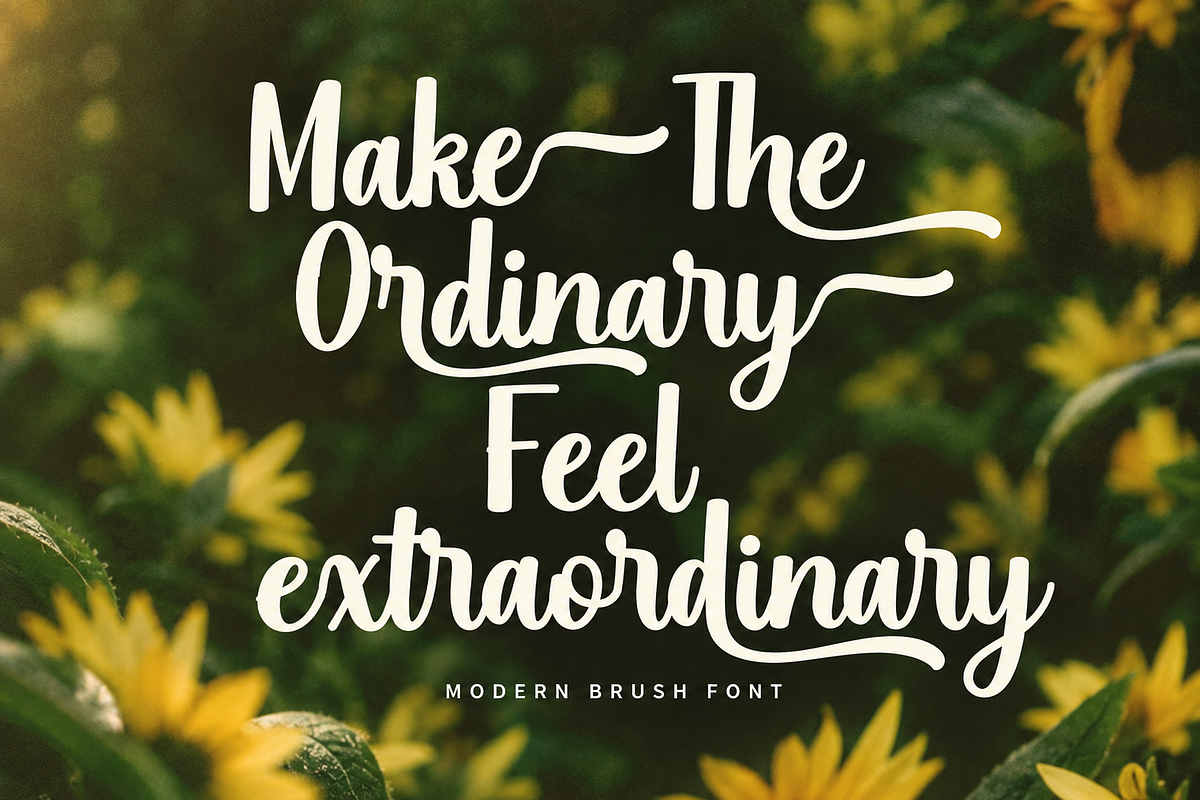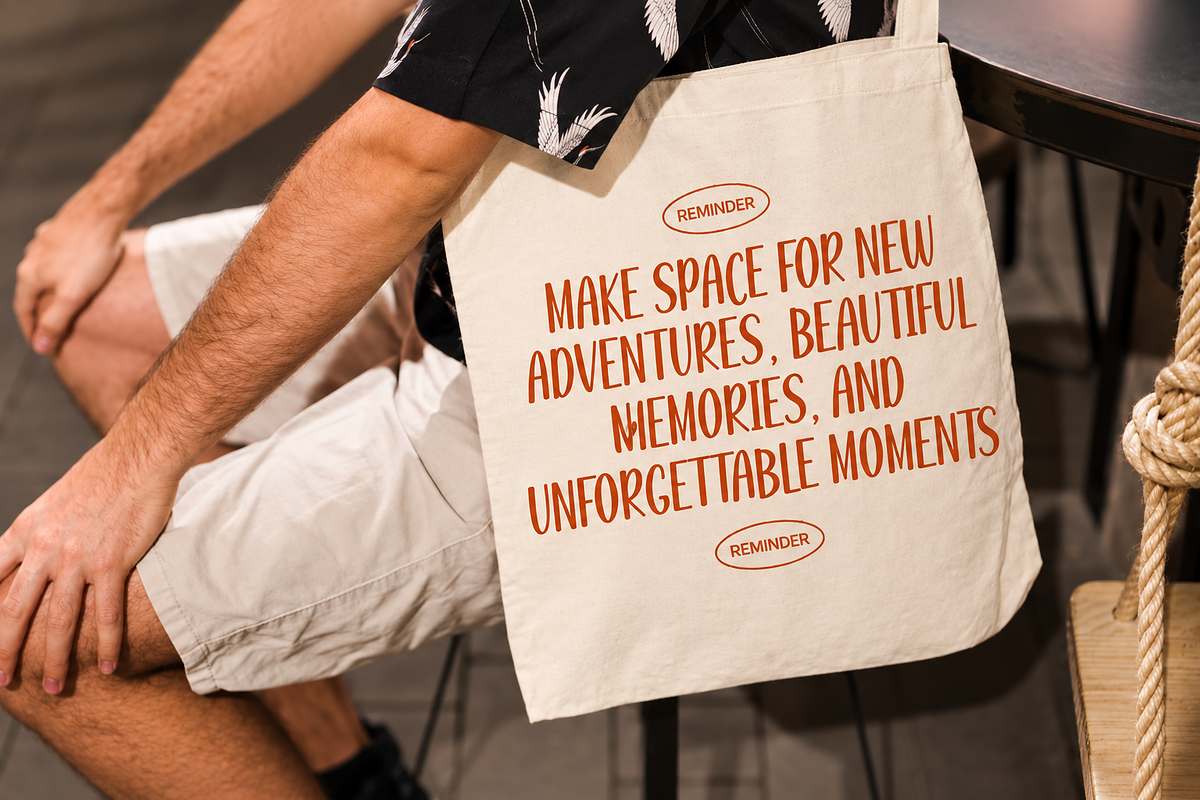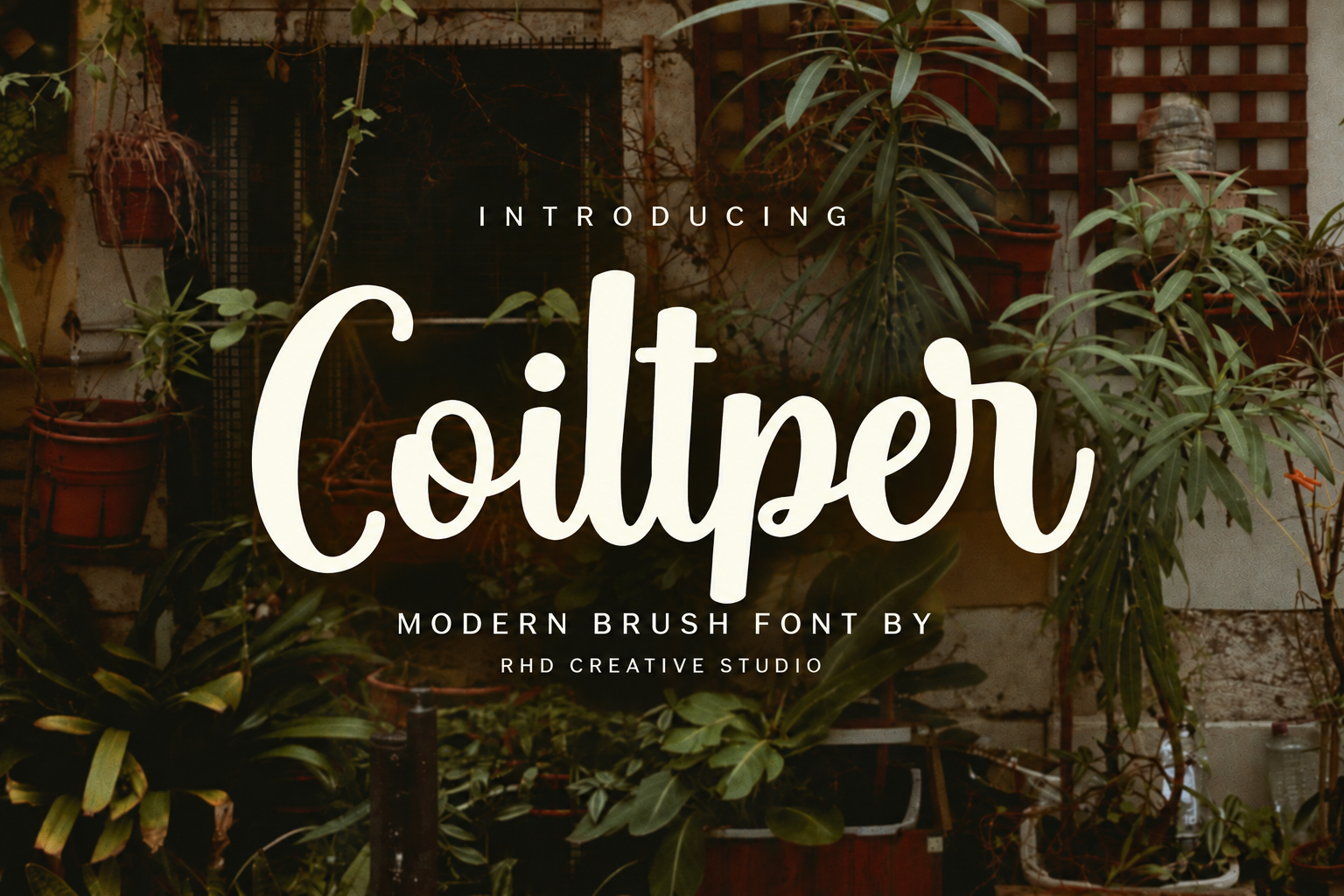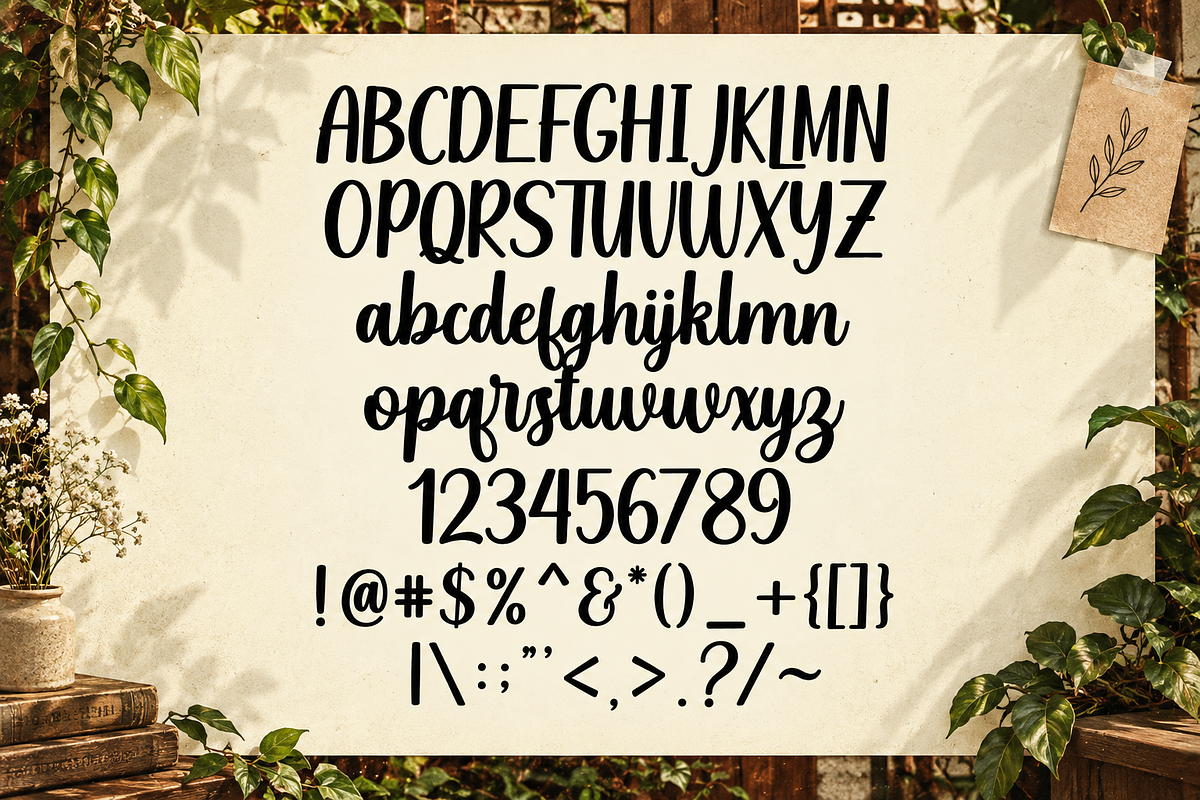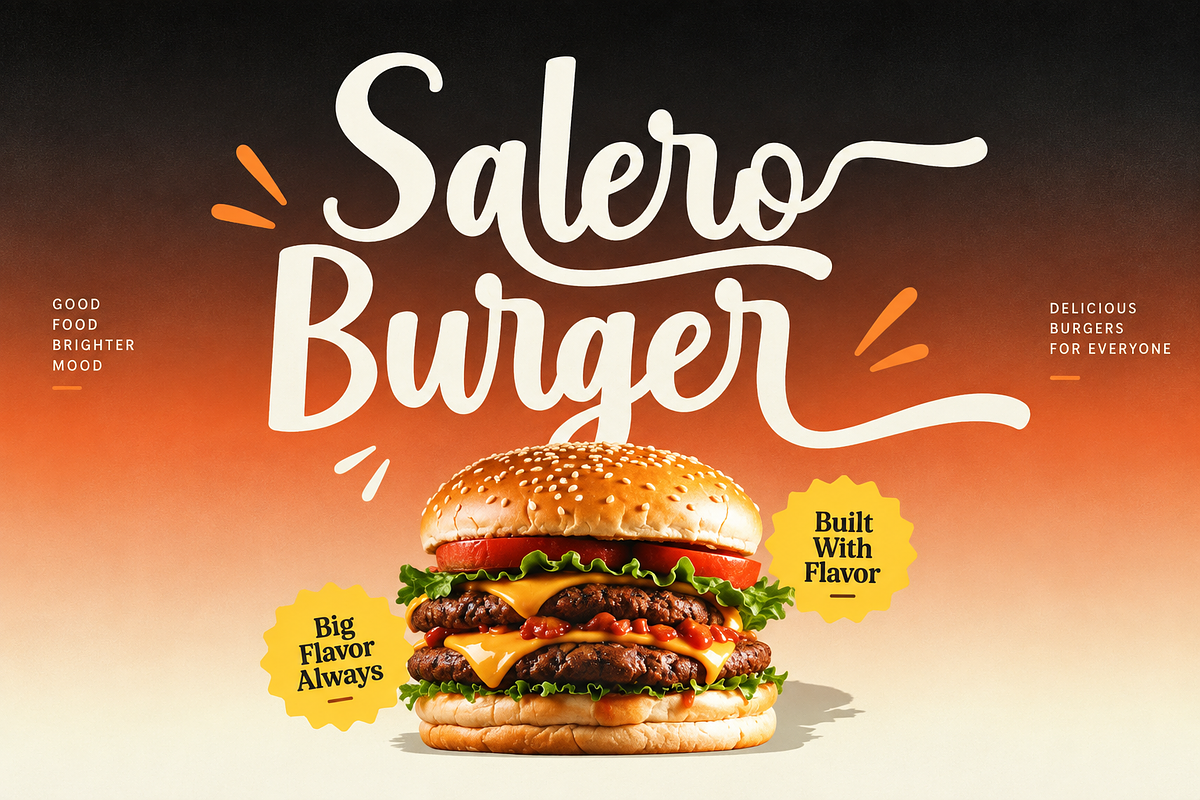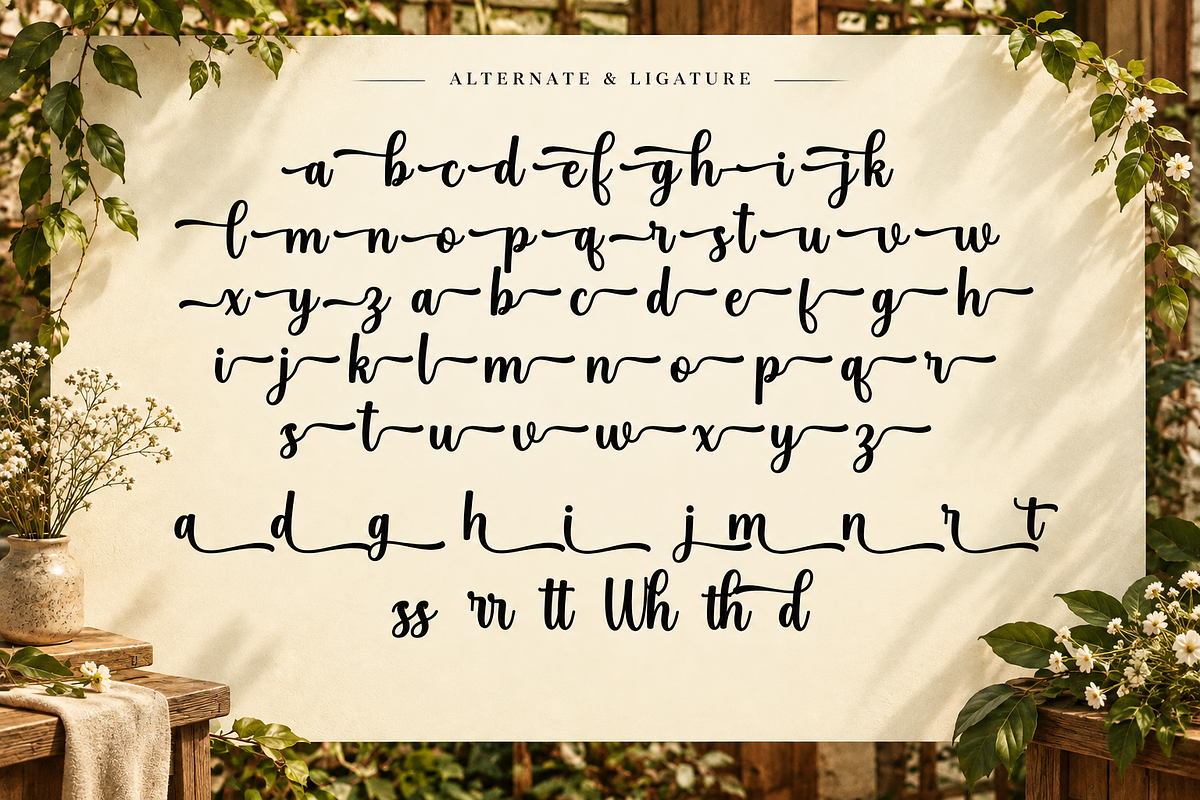
Coiltper - Modern Brush Font
Hello everyone, I would like to introduce Coiltper - Modern Brush Font.
Coiltper - Modern Brush Font with Handmade character. Coiltper - Modern Brush Font, Modern font to make your design project stand out! Coiltper a perfectly choice for any creative endeavor, creating, modern, chic, lifestyle design such as logotype, title, cover, branding, invitations, wedding designs, display and magazine, social media posts, advertisements, printed quotes, product packaging, corporate brand, product designs, labels, photography, watermarks, special events and any other project with modern touch.